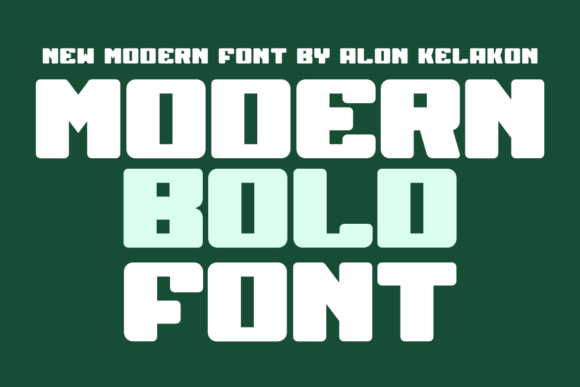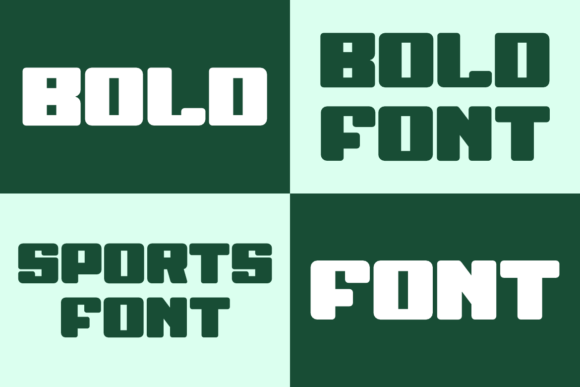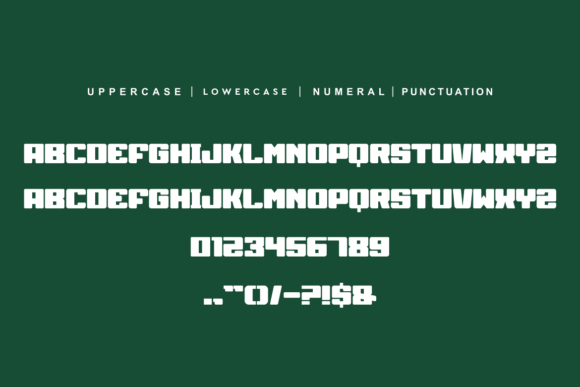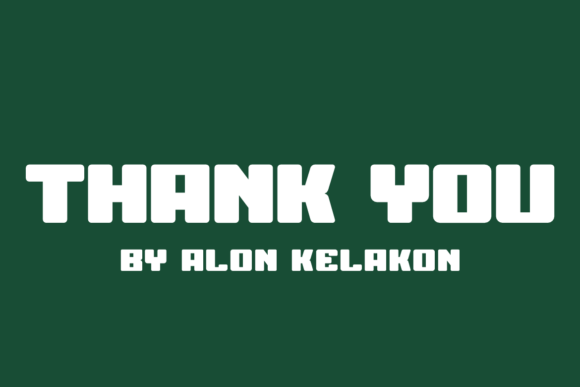
Introduction to King Neprog Font
Have you ever been stuck on a design project, searching for the perfect font to bring your vision to life? That’s exactly where the King Neprog Font comes in – a game-changing sans serif font that’s sure to elevate your creative project. Whether you’re working on a movie title, album cover, or even a logo, this versatile font has got you covered.
As a designer, you know how crucial it is to have access to high-quality design resources like the King Neprog Font. With its transparent background and free download option, you can experiment with this unique font without any limitations. Whether you’re a seasoned pro or just starting out, the King Neprog Font is an invaluable addition to your design arsenal.
- Unique and creative design makes it perfect for artistic and expressive projects, adding a touch of elegance and sophistication.
Honest Review: King Neprog Font
I recently had the chance to work with the King Neprog Font, and I must say it’s been a game-changer for my creative projects. This font is perfect for designers who want a high-quality, unique design resource. One of the standout features is its transparent background, which makes it incredibly versatile and easy to use.
- ✨ Unique design aesthetic that sets it apart from other fonts
- ✨ Highly customizable, making it perfect for creative projects
- ⚠️ Limited character set, which can be a drawback for some designers
Overall, I’m thoroughly impressed with the King Neprog Font. It’s a high-quality design resource that’s perfect for designers who want to add a unique touch to their projects. If you’re looking for a font that’s both stylish and functional, I highly recommend giving the King Neprog Font a try.
Getting the Most Out of King Neprog Font
To get the most out of the King Neprog Font, experiment with different font sizes, colors, and combinations with other design elements. Use it for creative projects such as logo design, branding, or digital art.
The King Neprog Font is ideal for:
- Logo design and branding
- Digital art and graphics
- Print design and marketing materials